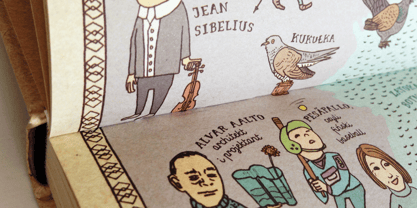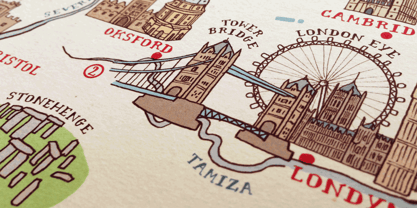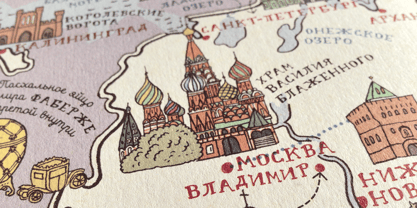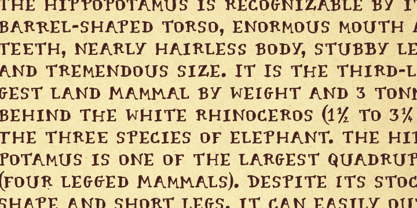
Cartographer Font
This Cartographer Font is perfect for mapping service branding, geographical survey materials, navigation app interfaces, exploration company logos, travel planning applications, topographical design projects, adventure tourism promotions, GPS technology communications, geographic research publications, and precise wayfinding systems.
What makes this Cartographer Font exciting is its geographical precision that captures the meticulous accuracy and exploratory spirit of professional mapmaking and territorial discovery. The font features structured letterforms with cartographic clarity that convey navigational expertise, territorial knowledge, and exploratory excellence. Its mapping character and geographic authenticity make it ideal for brands seeking to communicate spatial accuracy, navigation excellence, and geographical expertise in exploration and technology markets.
The Cartographer Font family includes light, regular, medium, and bold weights with topographical alternates, navigation variants, and geographical flourishes. This comprehensive mapping font family provides designers with precise typographic tools to create accurate compositions while maintaining the cartographic character essential for navigation technology and exploration brand communications.
Mapping companies and exploration organizations consistently choose Cartographer Font Free Download for projects requiring authentic geographical appeal and navigation credibility. This font's distinctive precise character perfectly captures the mapping expertise and territorial knowledge that resonate with audiences who appreciate geographical accuracy, exploration adventures, and brands that embody navigational excellence and spatial precision.
The precise construction of Cartographer Font showcases expertly designed letterforms with geographical proportions that ensure exceptional accuracy across all mapping applications. Its navigational appearance and cartographic character create memorable impressions while maintaining the readability necessary for effective geographic communication and exploration materials.
Professional designers appreciate how Cartographer Font brings immediate geographical authenticity and navigation authority to brand communications. The font's mapping nature allows organizations to communicate spatial expertise and territorial knowledge while maintaining the professional quality necessary for effective positioning in navigation technology and geographical exploration markets.
The exploratory appeal of Cartographer Font makes it particularly effective for brands emphasizing geographical precision, navigation expertise, and territorial discovery. Its accurate character resonates strongly with audiences who appreciate mapping technology, exploration adventures, and brands that represent the precision and expertise of professional cartography and geographical exploration.
Whether developing applications for navigation technology or creating materials for geographical exploration companies, Cartographer Font Free Download provides the precise typographic foundation that mapping brands need to communicate their geographical expertise, navigation accuracy, and the territorial excellence that defines professional cartography and spatial technology achievement.